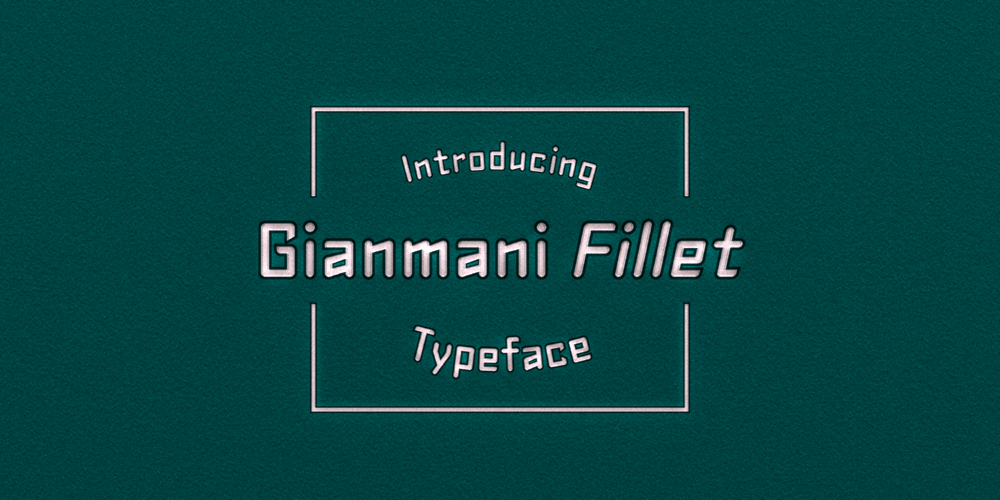
Gianmani Fillet Font Family was designed by Yuttapum Gianmani and published by Gianmani. Gianmani Fillet contains 6 styles and family package options. Gianmani Fillet is a sans serif type contemporary designed by Gianmani Yuttapum in 2022. Inspired by the simplicity of the geometric, it is sharp and easy to read, suited to branding and corporate identity, wayfinding, editorial, delicate headlines, digital environments, signage, print, advertising, packaging, text application, and logos.